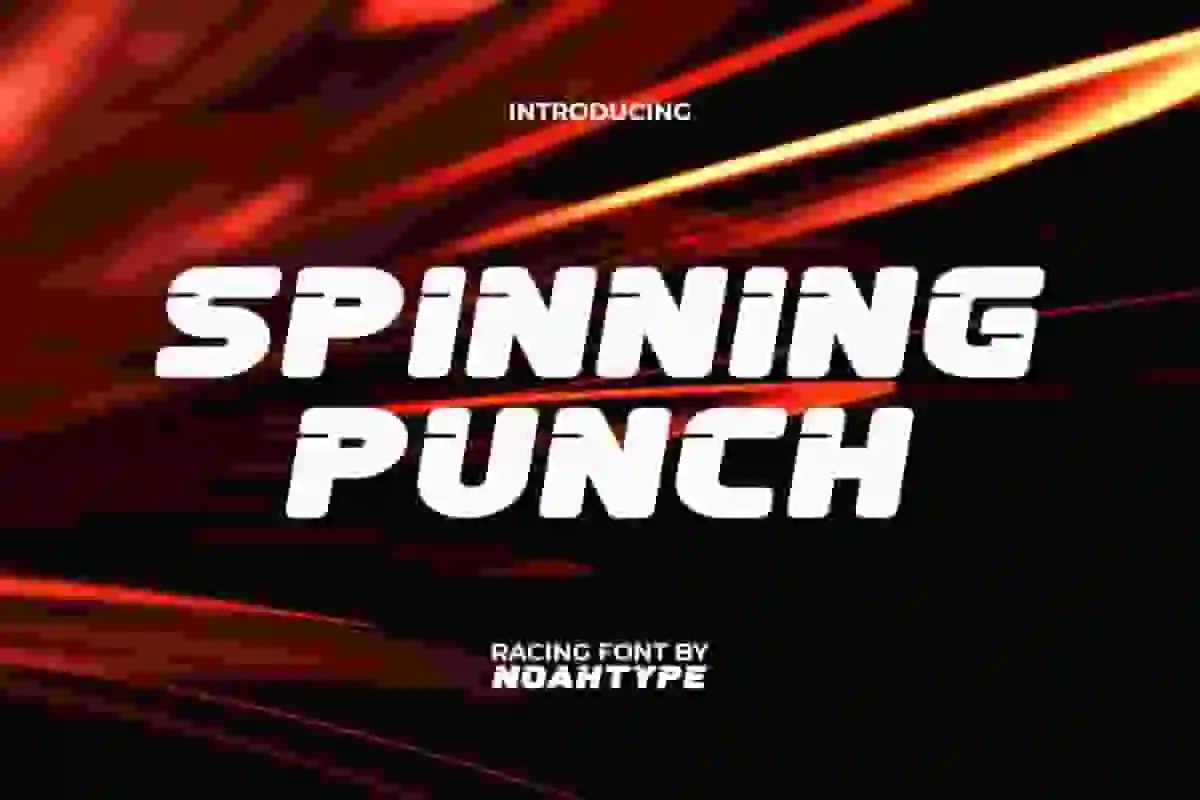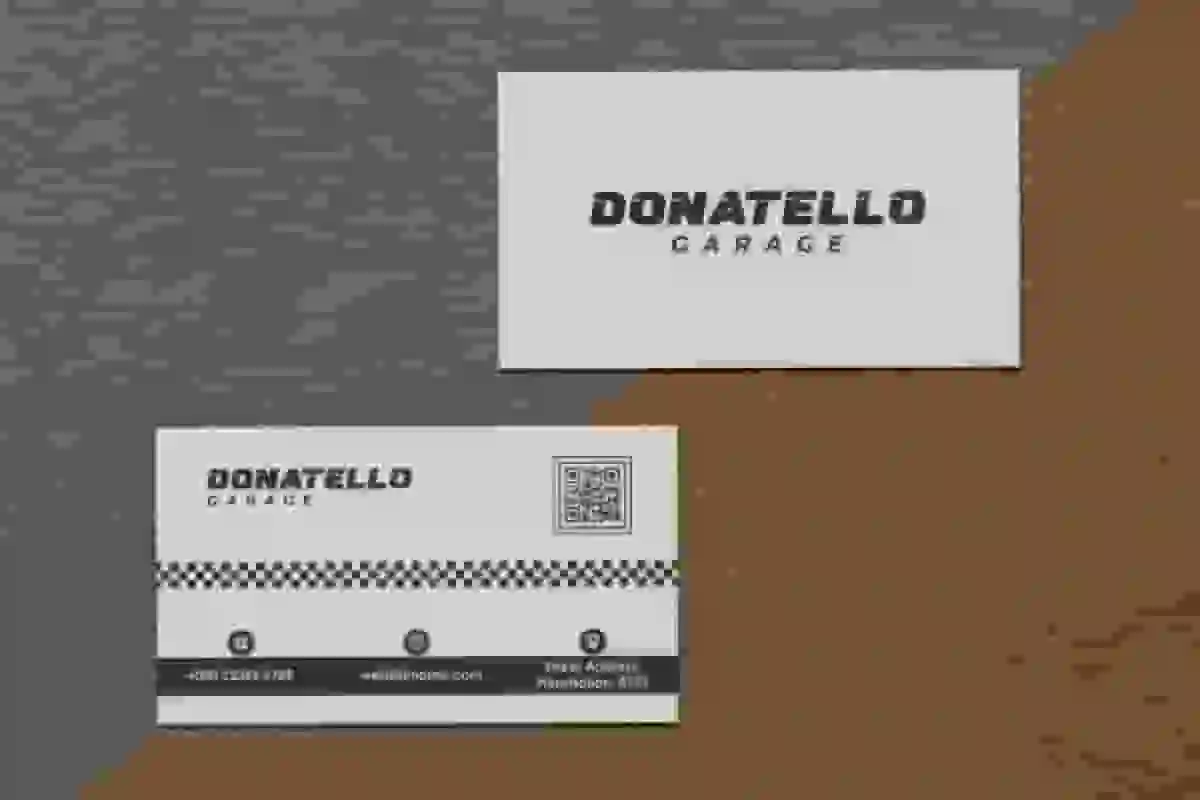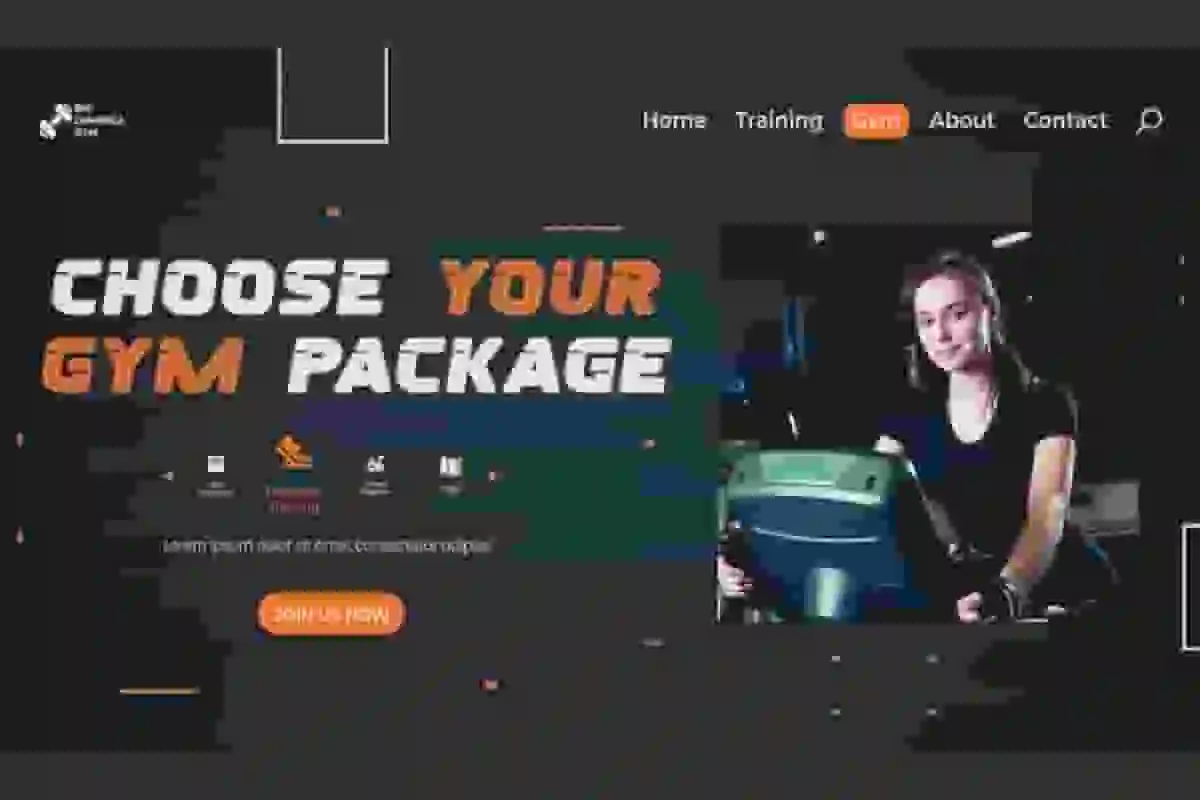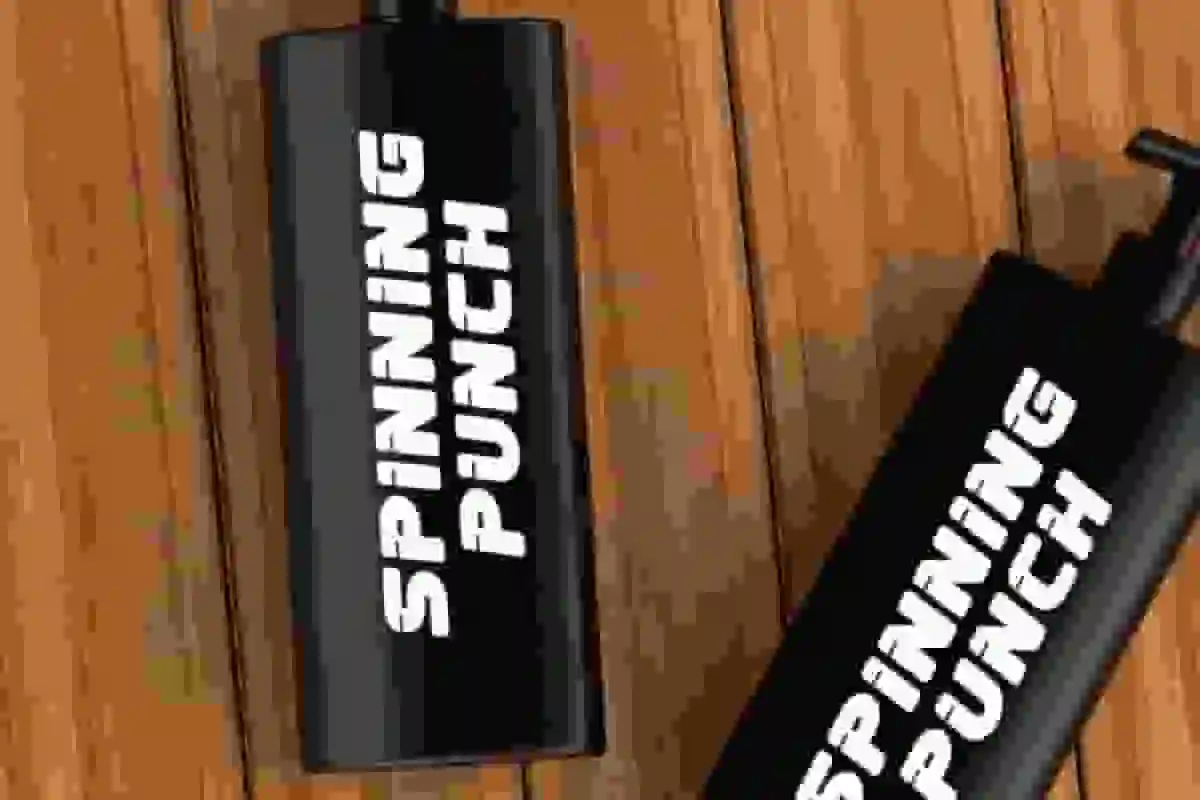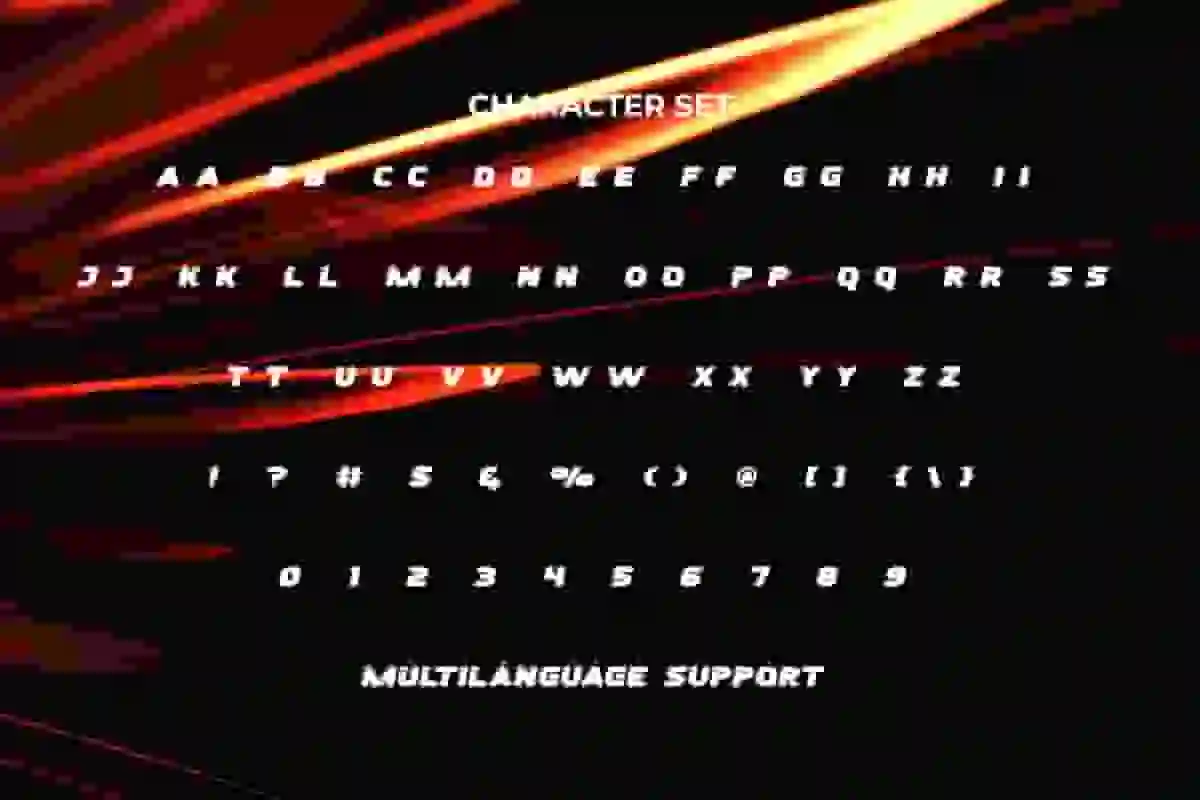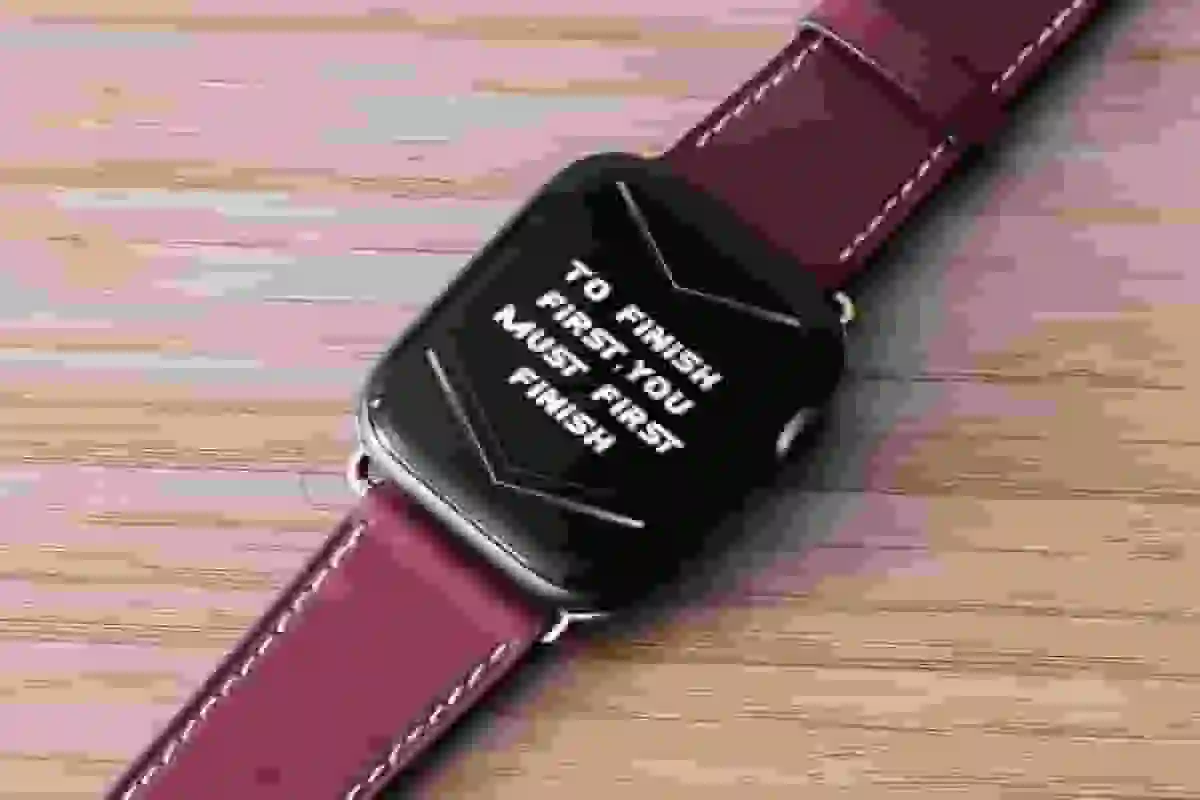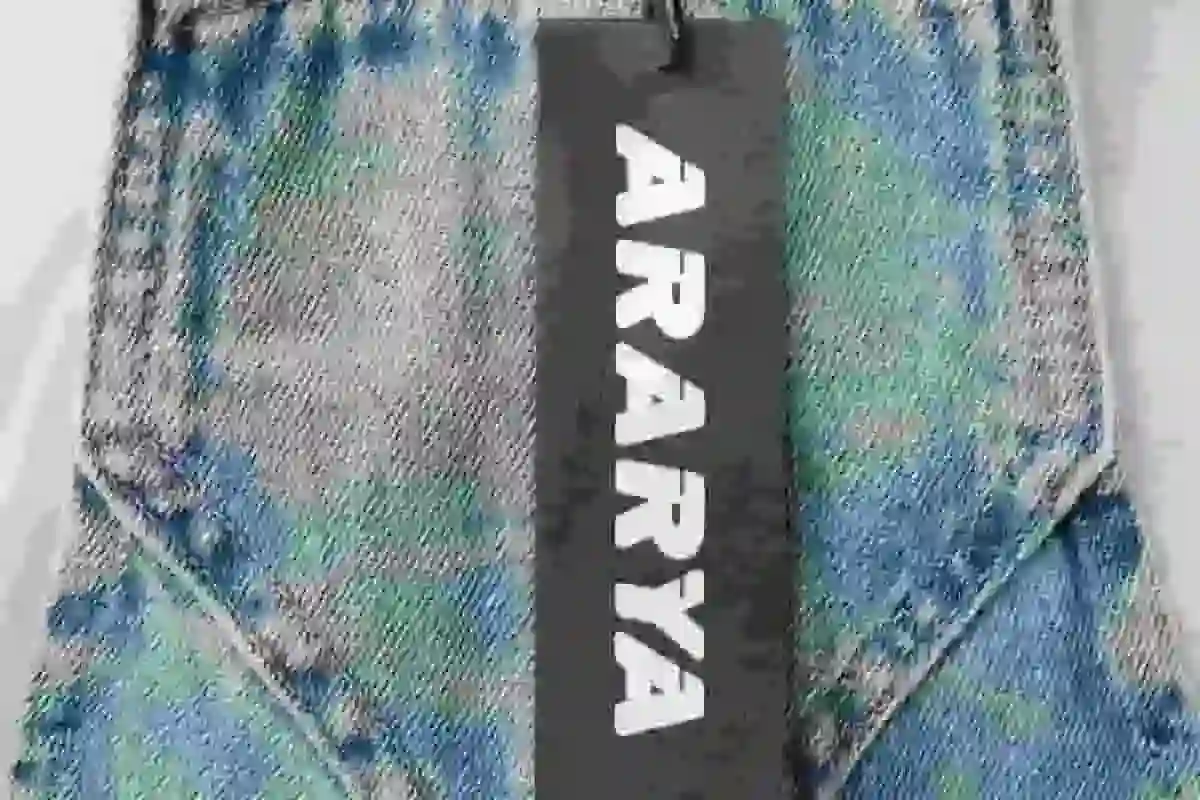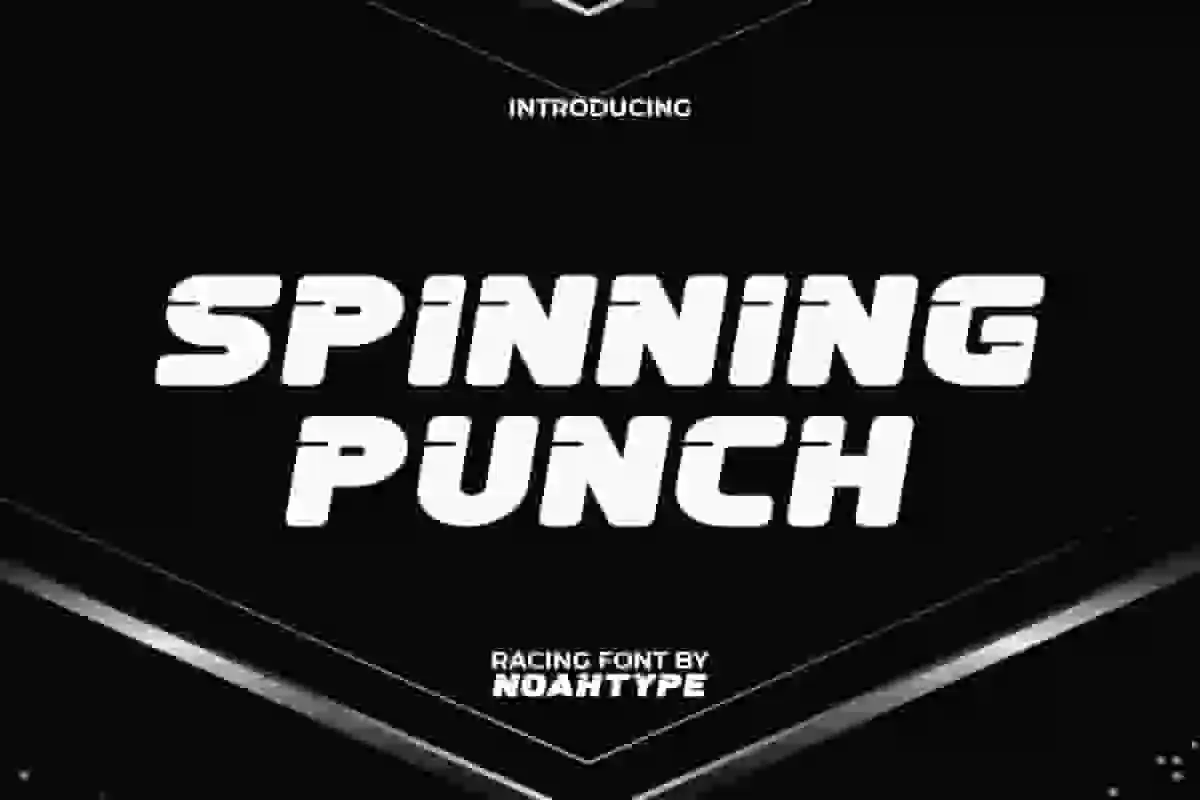
Spinning Punch Font is a unique decorated modern racing and boxing display font by NoahType. This font has a simple style with the addition of thin lines which makes it different from the others. It will be perfect for any projects, such as stationery, custom design, invitation, label, brand image, cover, menu, poster, printing, product packaging, quotes, signage, website, and many more!
Spinning Punch Font includes full set of ALL CAPS for Uppercase and Lowercase Basic Characters, Numerals, Punctuation, and Symbol. This sporty font will make your design standout and also a perfect choice for many industries, such as automotive, sports, game, racing, fashion, movie, accessories, advertising, art, café, event or festival, printing, publishing, etc.